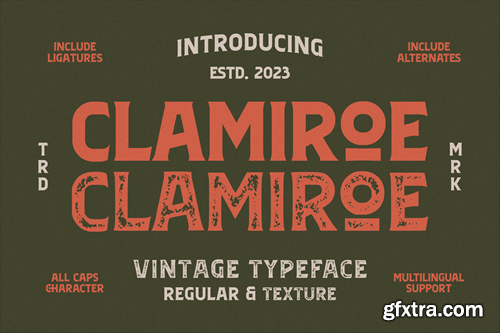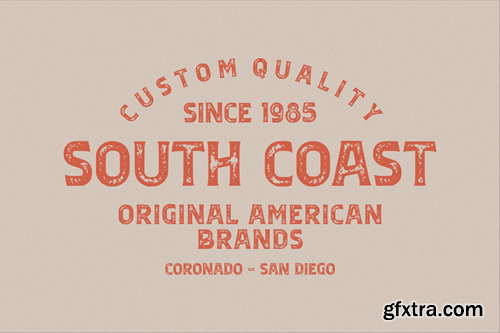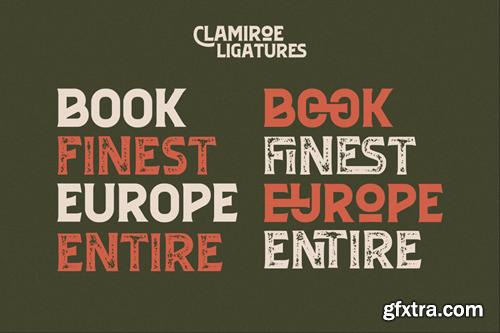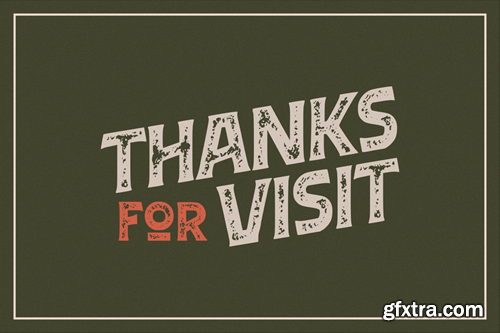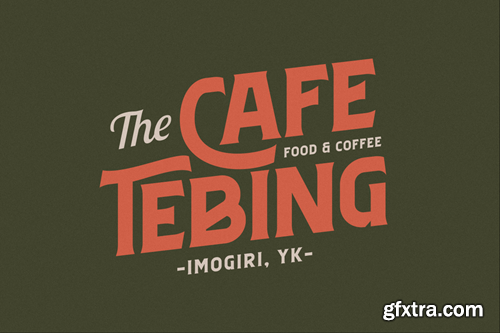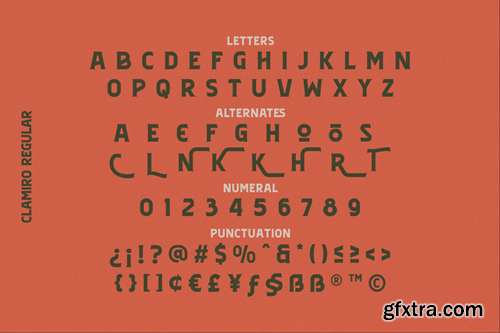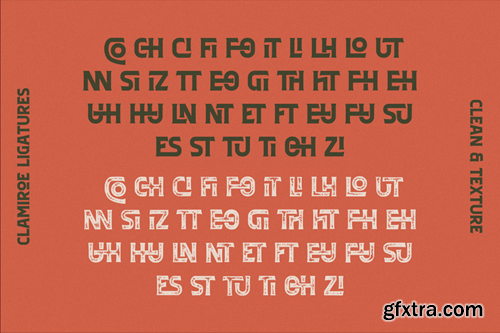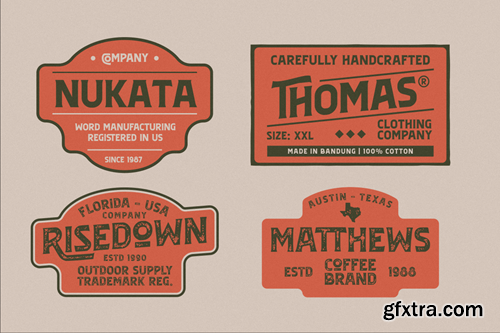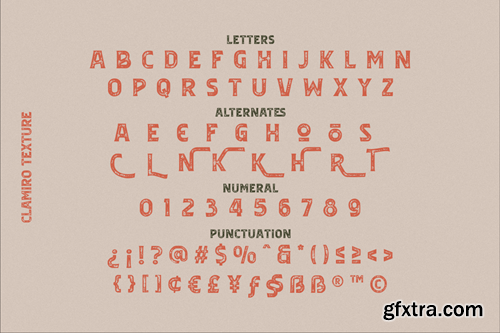
Clamiroe Typeface
Introducing new display vintage typeface with 2 style clean and textured called “Clamiroe”. This font inpired by old vintage packaging design, vintage flyer headlines, and vintage sign. Clamiroe is all caps font is good for your branding, poster design, packaging, book cover, flyer, t-shirt design, and more.
Features:
• All Caps
• Style regular and texture
• Ligatures
• Alternates
• Numeral
• Punctuation
• Multilingual Support